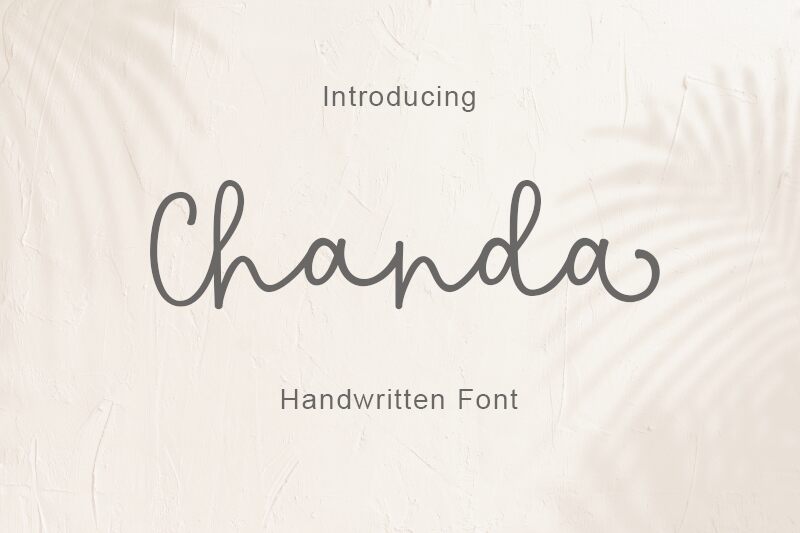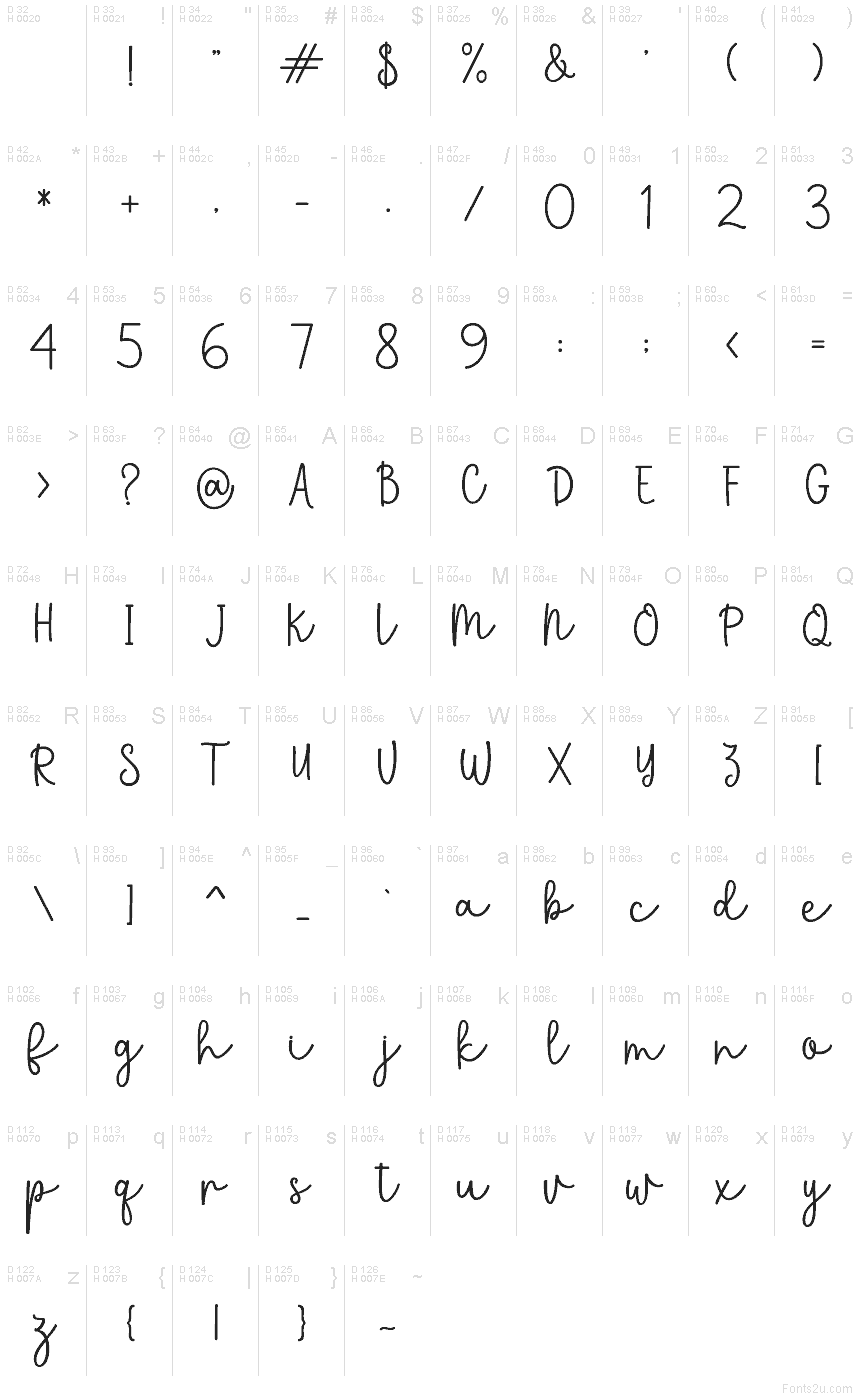
Chanda
Chanda font by Amarlettering - Takiy is a free handwritten script font that captures the ease of neat, everyday penmanship. Its smooth, looping strokes and even monoline weight feel like they were written in one calm motion, giving layouts a friendly, human touch without looking messy or rushed. Letters tuck into each other with a gentle rhythm, so headlines and short phrases read as soft, connected lines rather than jagged scribbles.
Using Chanda, this free font shines on wedding invitations, thank-you cards, quote posts, lifestyle blogs, product packaging, and personal branding where you want warmth without sacrificing clarity. It stays legible at smaller sizes for captions and labels, yet looks especially charming when scaled up for headings. Pair this handwritten typeface with a clean sans serif for body text to keep your designs grounded and easy to read.